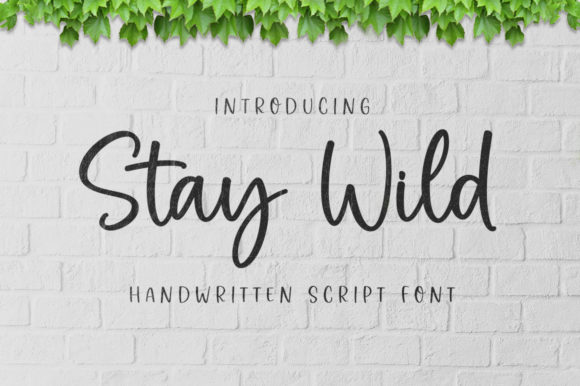
Dive into the world of Stay Wild Font, an exceptional script font that captures the essence of handwritten beauty. Crafted with meticulous care by Graphix Line Studio, this font is a symphony of elegance, flow, and delicate charm.
Journey through its vast character set, each glyph lovingly designed to harmonize with the next, creating a symphony of visual delight. Its well-balanced proportions ensure seamless integration into a diverse range of design projects, becoming an indispensable tool in your creative toolbox.
Indulge in the boundless versatility of Stay Wild Font. Whether you seek to craft heartfelt personal letters, design enchanting invitations, or add a touch of handwritten charm to your digital creations, this font will elevate your expressions with an air of sophistication.
Unleash your creativity and let Stay Wild Font become your artistic muse. Embrace the beauty of the handwritten word and make a statement that resonates.